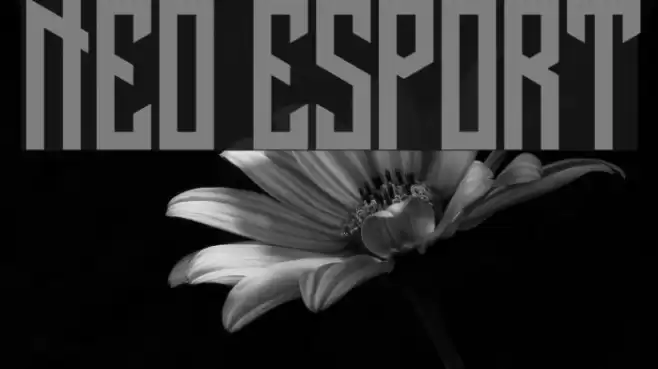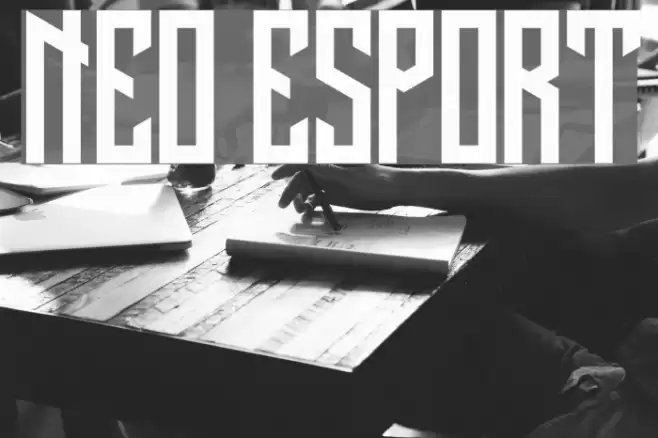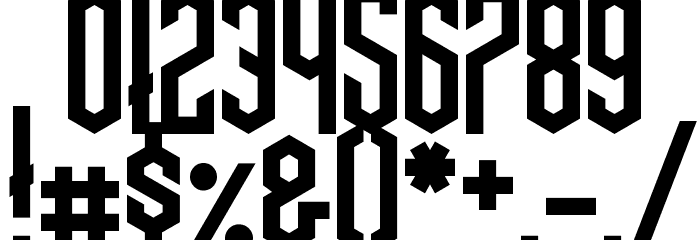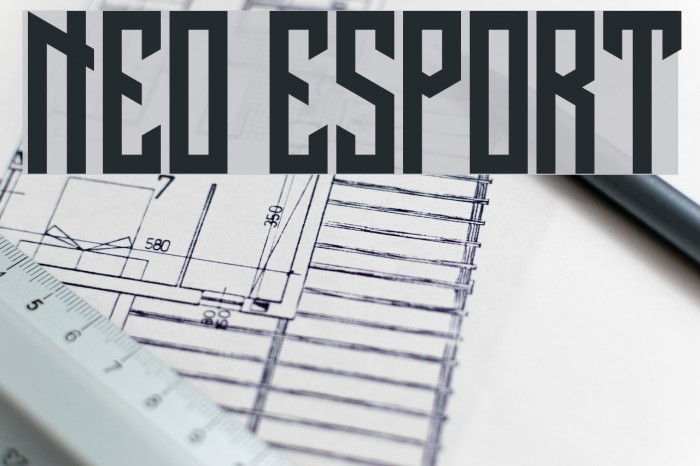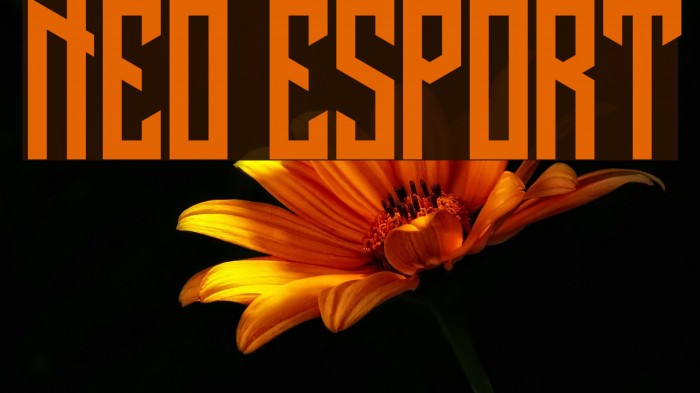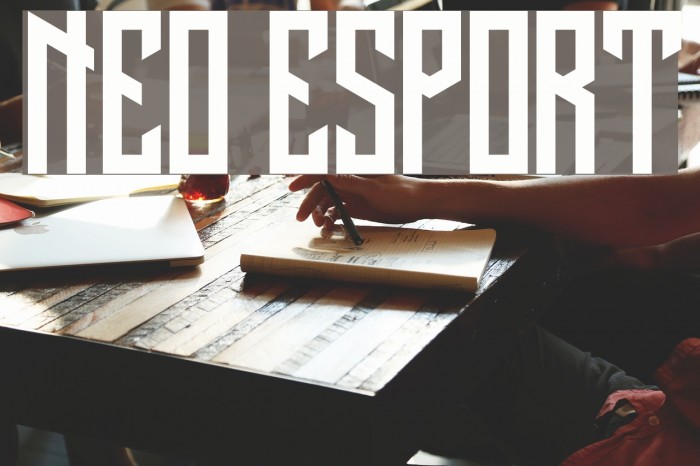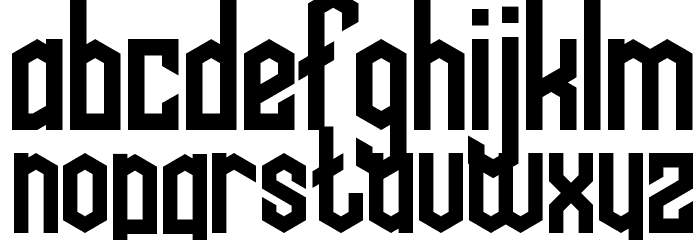
NEO ESPORT Font
NEO ESPORT Description
This font features a bold, geometric design with sharp angles and a futuristic aesthetic. The uppercase letters are tall and narrow, while the lowercase letters maintain a consistent height, creating a cohesive look. The numbers and special characters follow the same angular style, adding to the font's unique appearance. The overall design is reminiscent of digital or cyberpunk themes, making it ideal for modern and tech-oriented projects. The consistent stroke width and angular forms give it a strong presence, suitable for attention-grabbing headlines or logos.
A bold, geometric font with a futuristic, angular design from Uncategorized fonts.
- Proposed Projects: Ideal for esports branding, tech company logos, video game titles, and digital media projects.